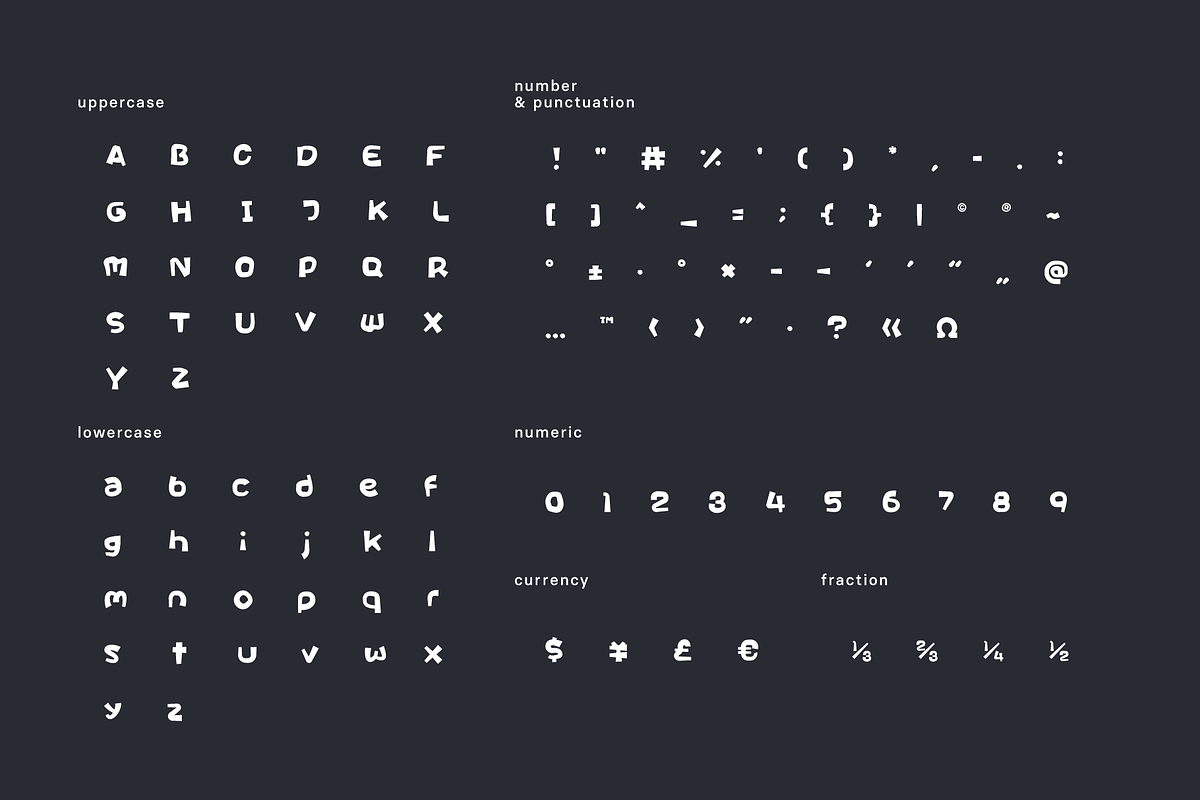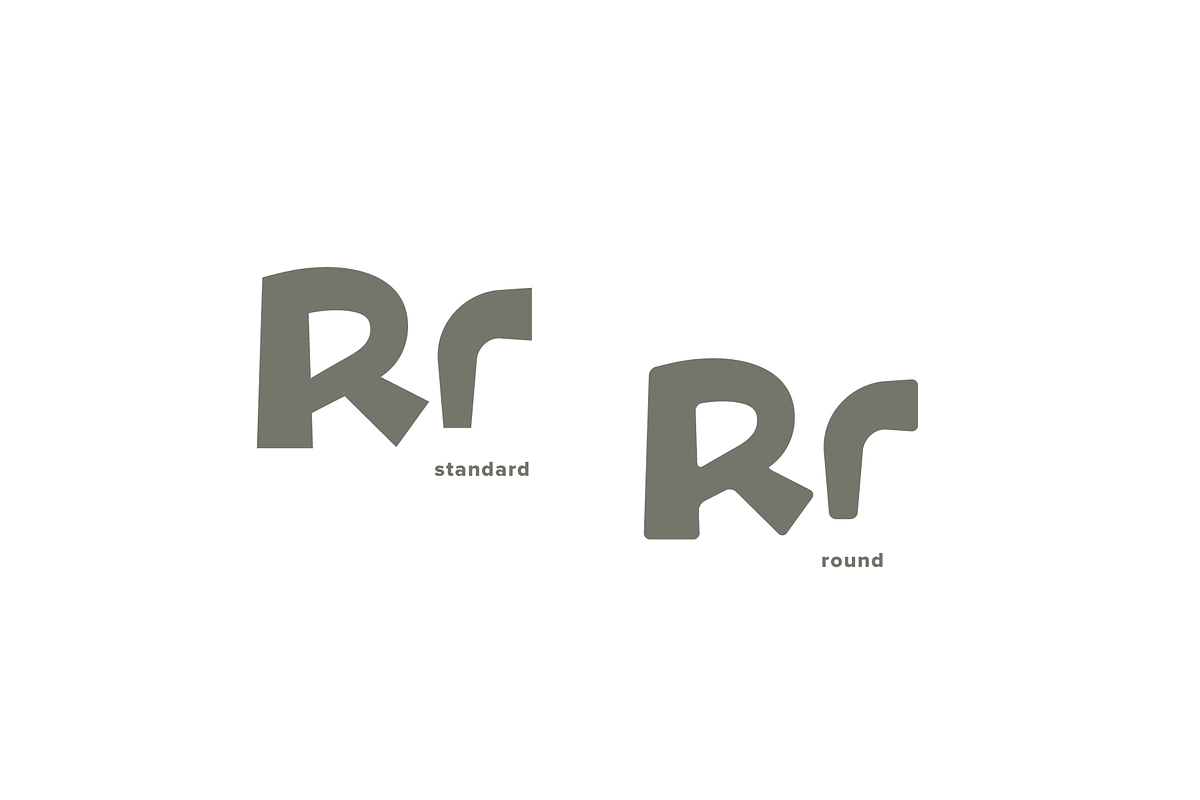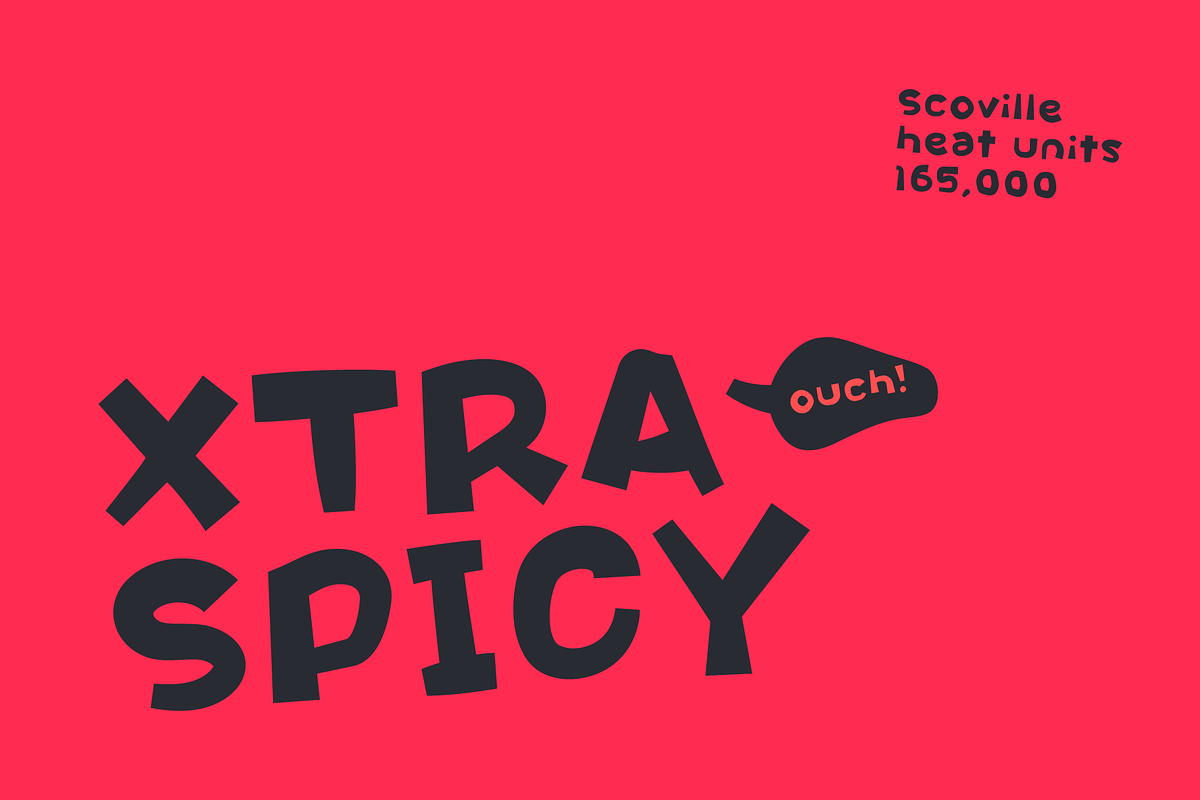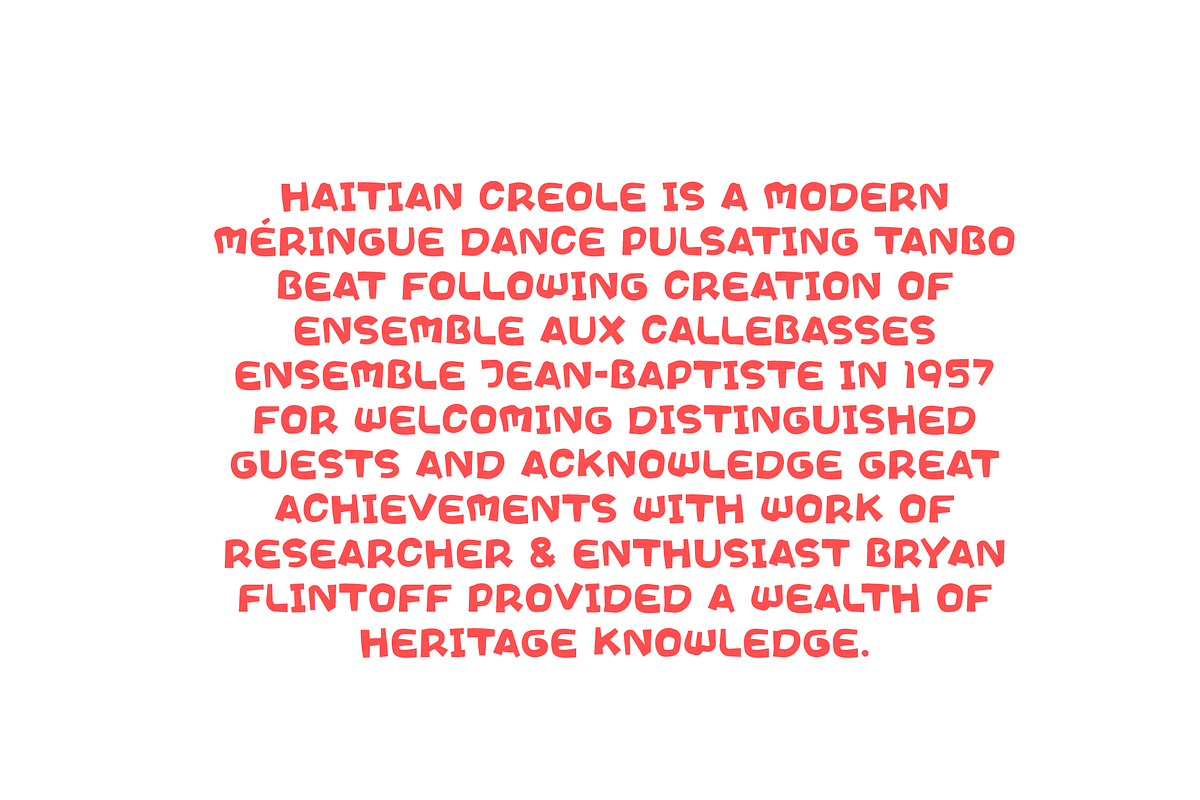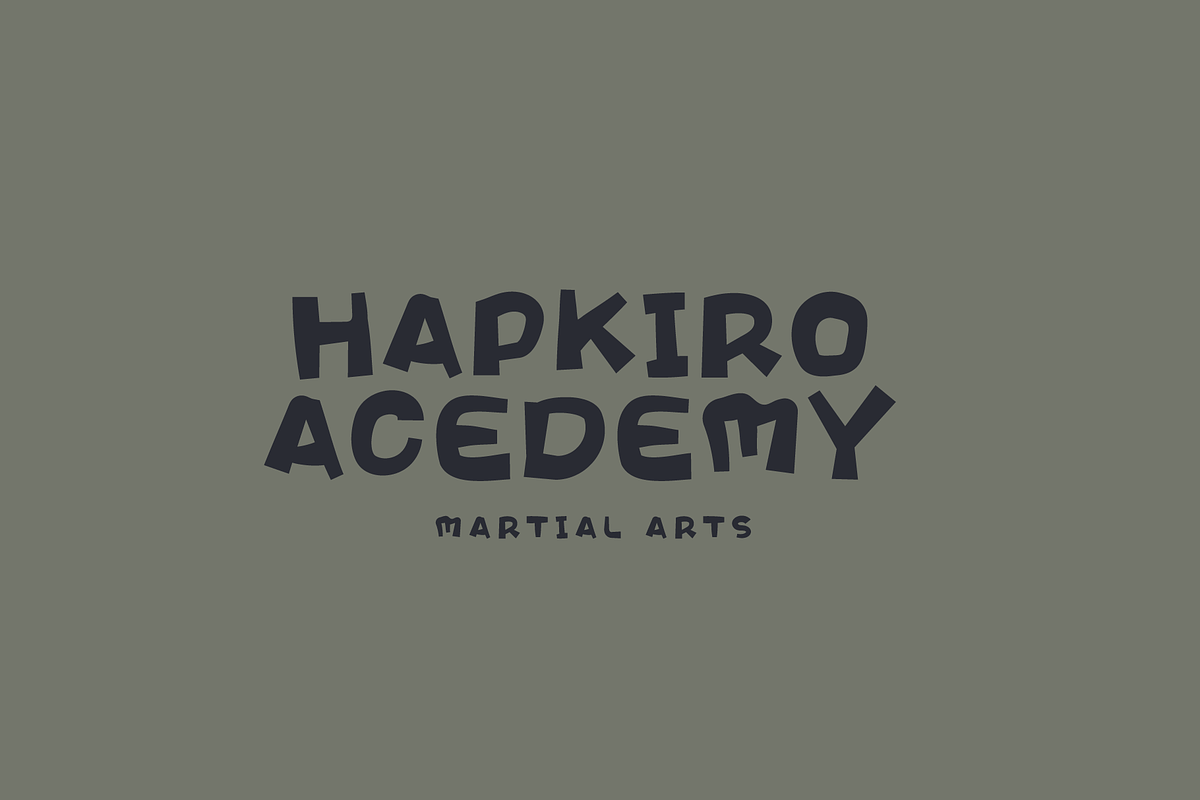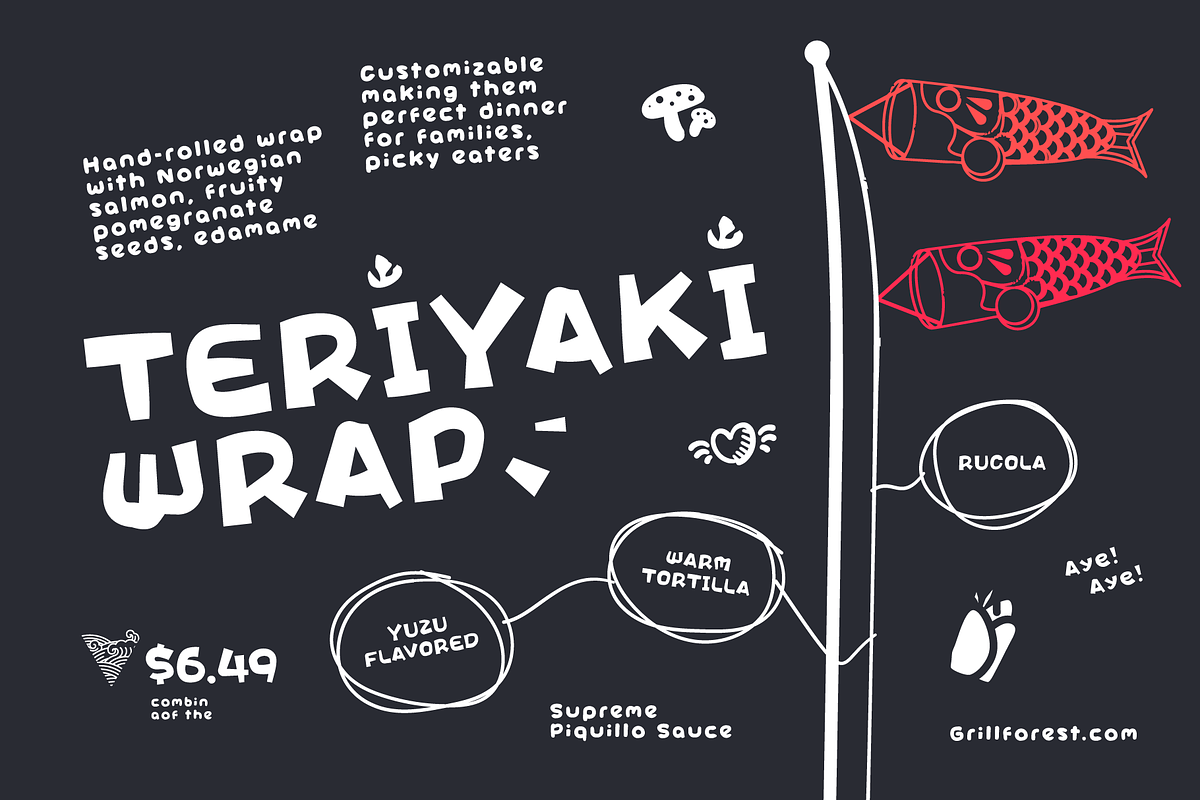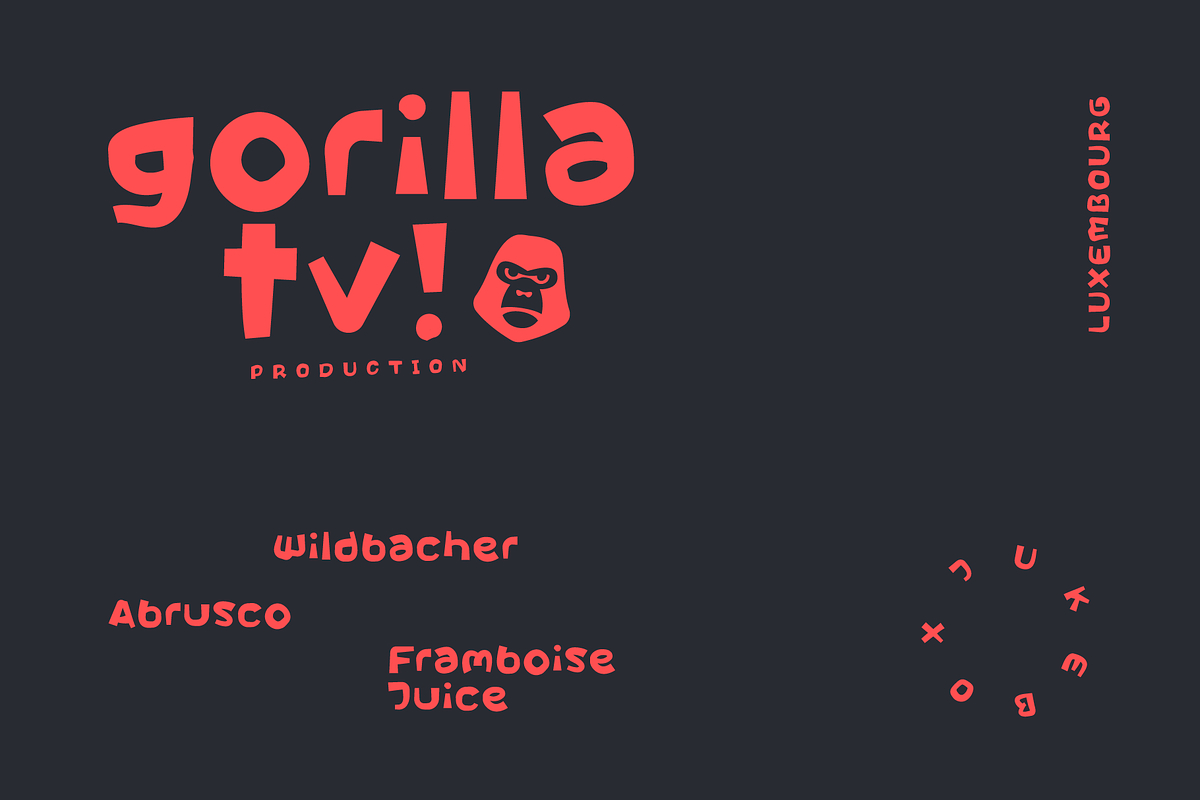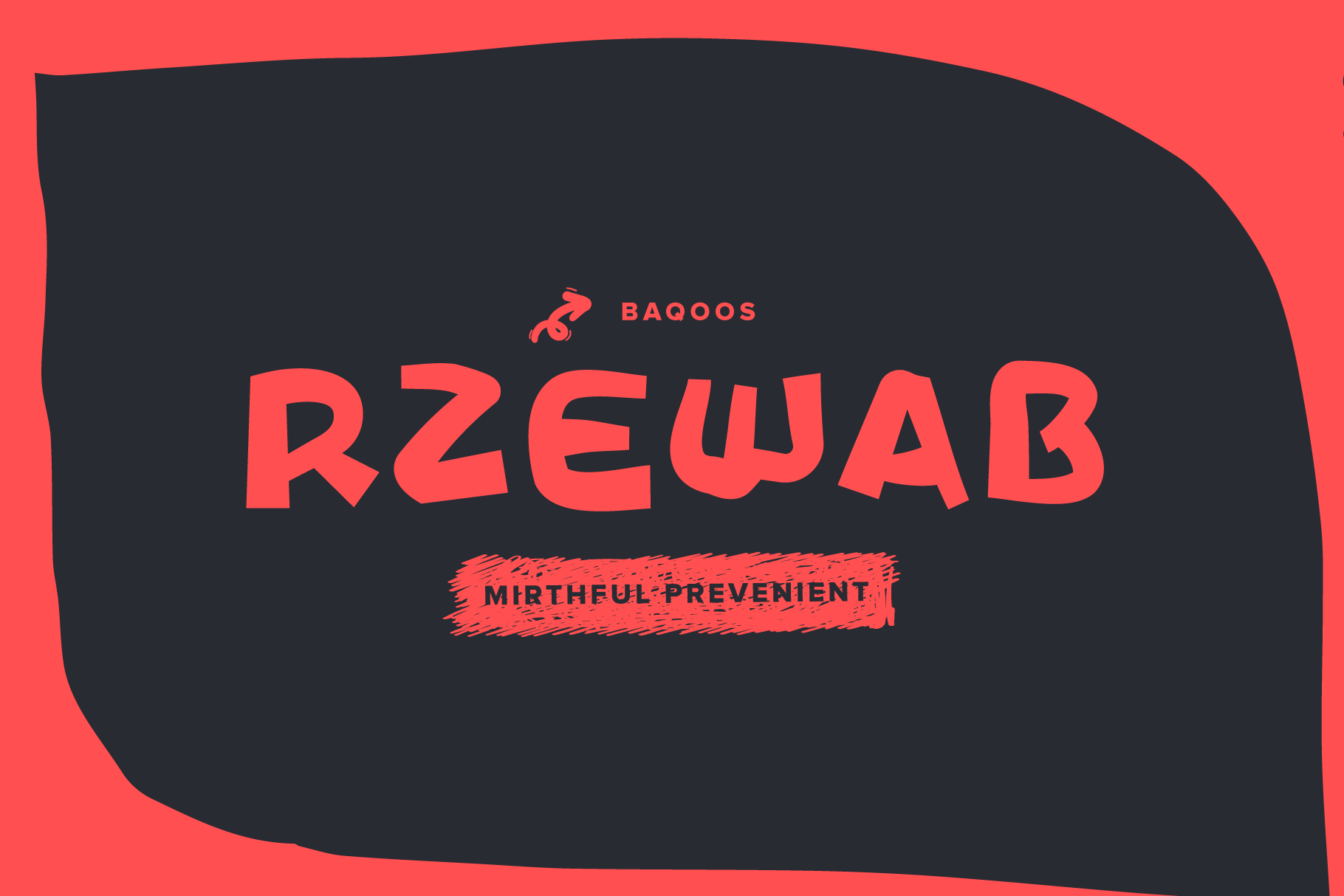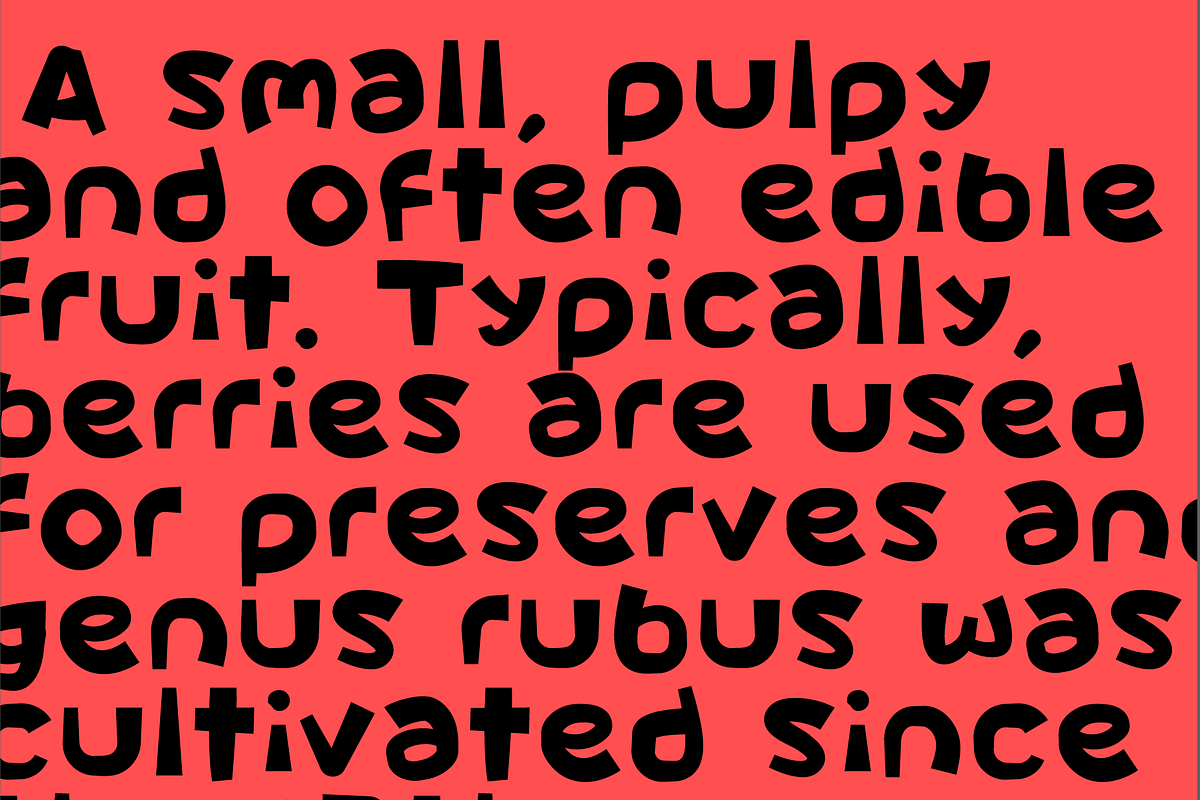
Rzewab Font
Rzewab is a mirthful prevenient handwritten typeface apt for headline, editorial, branding, packaging, printed materials and typographic applications. 220+ glyphs including punctuation and numerical.